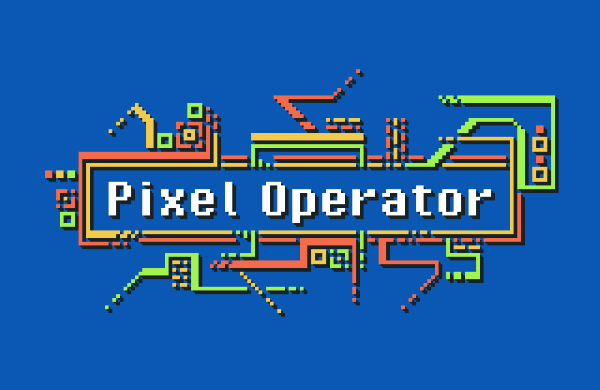
Pixel Operator Font
Pixel Operator is a free small letter font family built on a 16px grid, offering an exceptionally comprehensive set of 15 files — including Regular, Bold, Small Caps, Mono, and HB variants at multiple sizes — making it one of the most versatile pixel typefaces available for developers and designers who need consistent, readable text across diverse screen contexts and game interfaces.